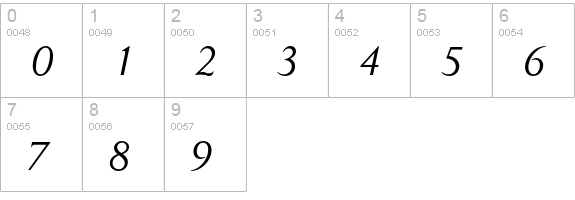
Jaeger Daily News Italic Font Details
Jaeger Daily News Italic is a distinctive, italic variant in the Jaeger typeface family \xE2\x80\x94 well suited to design and typography projects.
Introducing the captivating Jaeger Daily News Italic font, a stylish and elegant typeface that will instantly elevate your designs to new heights. With its sleek and modern design, this font effortlessly combines classic elements with contemporary flair, making it a perfect choice for a wide range of projects. The Jaeger Daily News Italic font boasts a unique and distinctive character that will grab your audience's attention and leave a lasting impression. Its italicized style adds a touch of sophistication and dynamism, making it ideal for headlines, titles, and any text that needs to stand out. Designed with meticulous attention to detail, Jaeger Daily News Italic font showcases clean, crisp lines and perfectly balanced letterforms. Each character is expertly crafted, ensuring optimal legibility and readability across various platforms and sizes. One of the standout features of Jaeger Daily News Italic font is its versatility. Whether you're designing for print or digital media, this font seamlessly adapts to any project, enhancing its visual impact. From magazines and newspapers to websites and branding materials, Jaeger Daily News Italic font will effortlessly elevate your designs to a whole new level. And the best part? Jaeger Daily News Italic font is available for free download at FontsMarket.com. This means that you can access this stunning typeface without any cost or restrictions. Now, you can bring a touch of sophistication and elegance to your designs without breaking the bank. So why wait? Download Jaeger Daily News Italic font today and unleash your creativity like never before. Elevate your designs with this stunning typeface and make a lasting impression on your audience. The possibilities are endless with Jaeger Daily News Italic font.